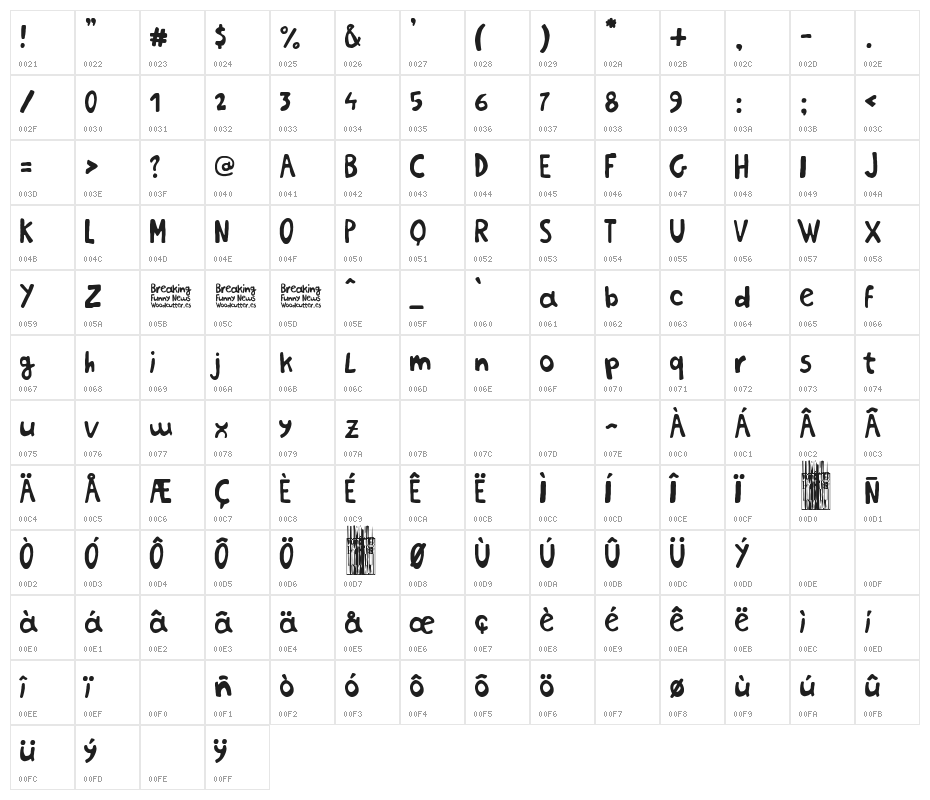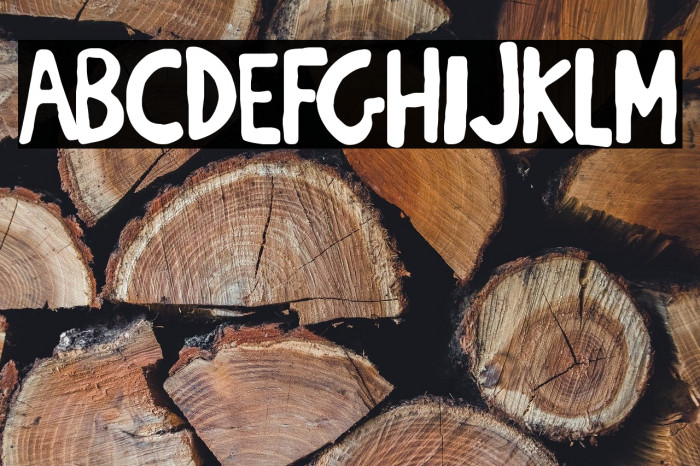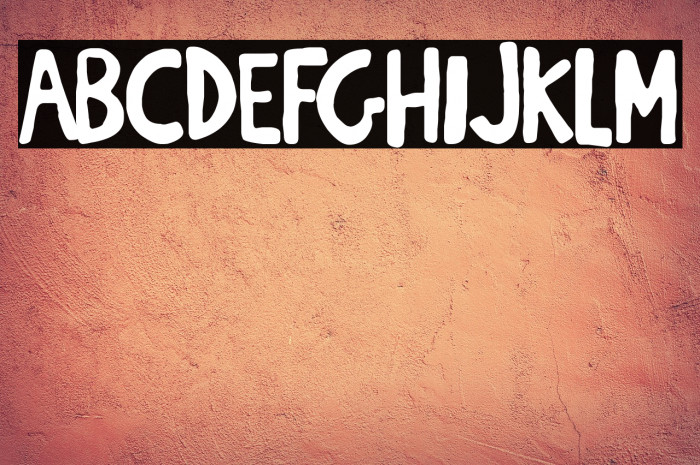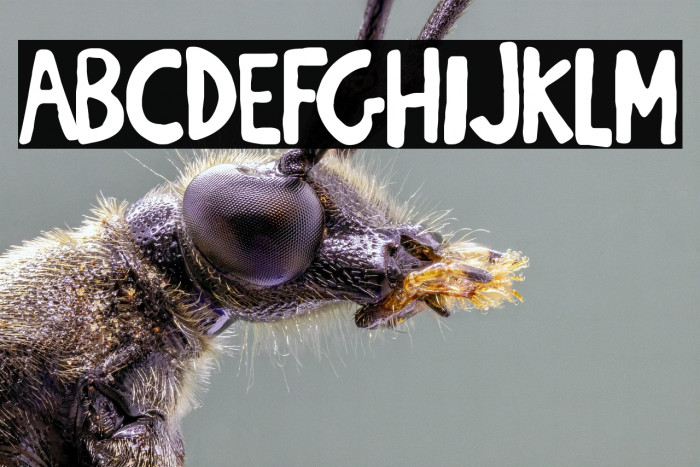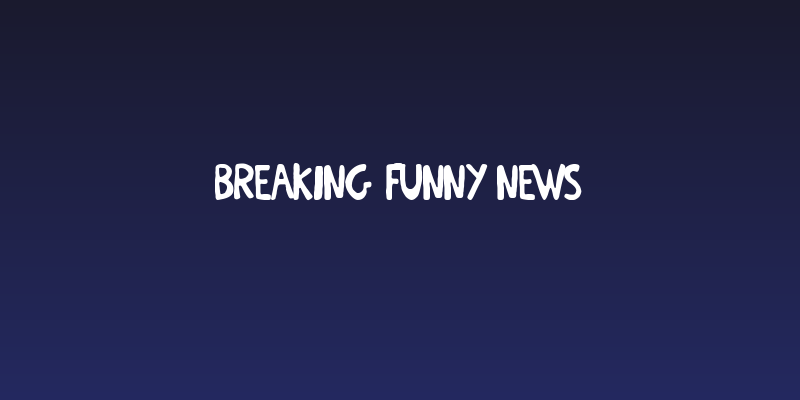
Breaking Funny News Font
Breaking Funny News Description
This playful and bold font features a handwritten style with a whimsical touch. The characters are rounded and slightly irregular, giving it a casual and friendly appearance. The uppercase and lowercase letters maintain a consistent style, with smooth curves and a slightly exaggerated thickness that adds to its charm. Numbers and special characters follow the same playful design, making it versatile for various creative projects. The font's unique personality makes it ideal for designs that require a fun and informal tone.
Overall StylePlayful
Use CaseHeadlines, Logos, Informal Text
Proposed ProjectsIdeal for children's books, comic strips, playful branding, and casual invitations.